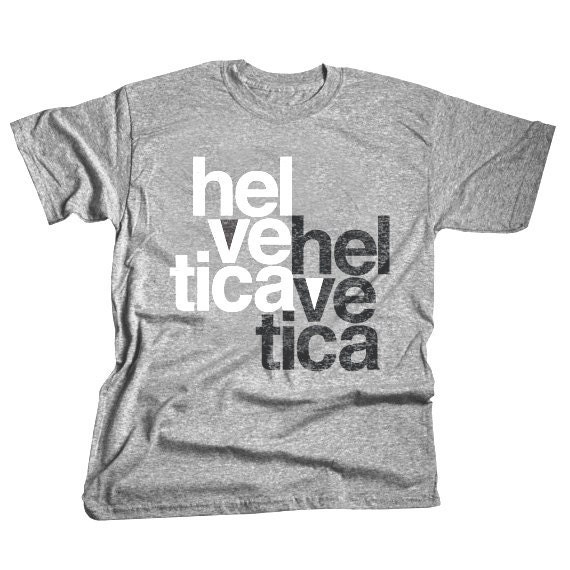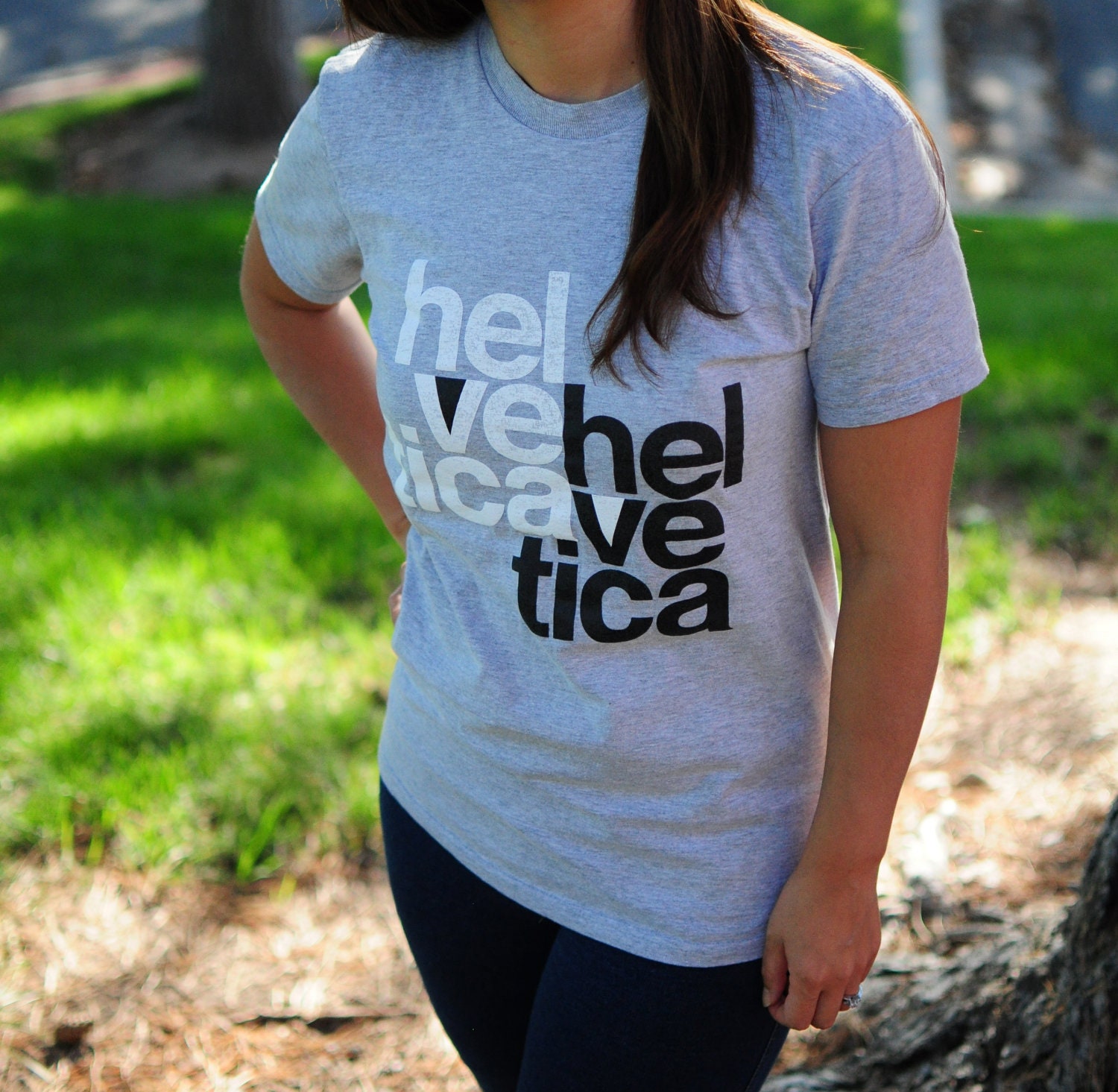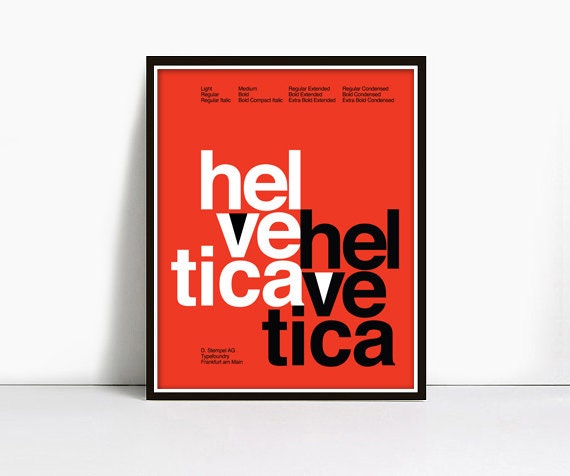
Suisse Swiss Helvetica Typeface Shirt
Swiss Design Helvetica Typeface T-Shirt **CLEARANCE**
This MEN'S/UNISEX shirt is a nice slim fit style 4.5 oz preshrunk ring spun 100% cotton super soft tee in a light steel heather color, and features a Swiss Helvetica typeface design based on a vintage 1960's typeface specimen.
This shirt is screen printed with black and white ink distressed on a heather gray shirt. It looks pretty awesome.